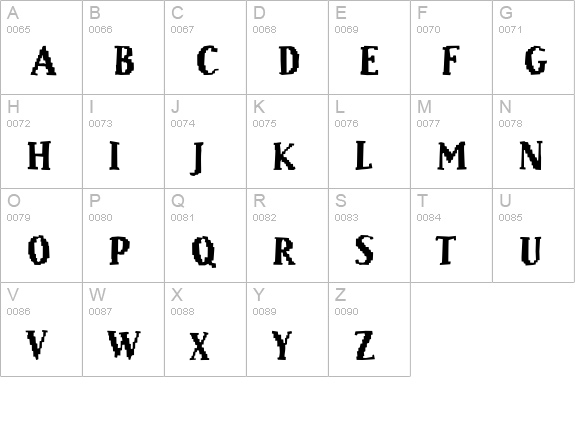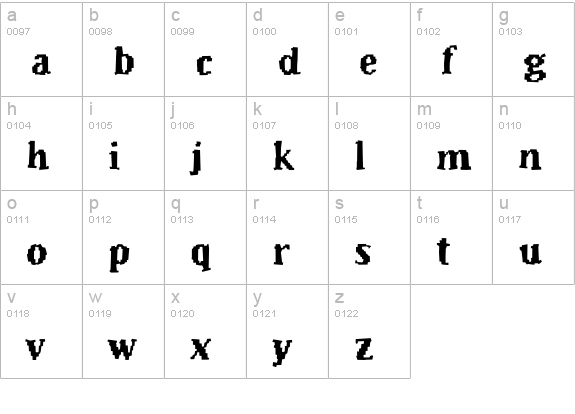
Murphy33-Heavy Font Details
Murphy33-Heavy is a heavy, high-impact variant in the Murphy33 typeface family \xE2\x80\x94 well suited to high-impact headlines, posters, and display advertising.
Introducing Murphy33-Heavy font, a bold and impactful typeface designed to make a statement. This versatile font is perfect for adding a touch of strength and sophistication to your designs. Whether you're creating posters, logos, headlines, or any other project that demands attention, Murphy33-Heavy is sure to deliver. What's even better is that Murphy33-Heavy font is available for free download at FontsMarket.com. Yes, you read that right - you can get your hands on this powerful font without spending a dime. So why wait? Elevate your designs with Murphy33-Heavy and let your creativity shine.